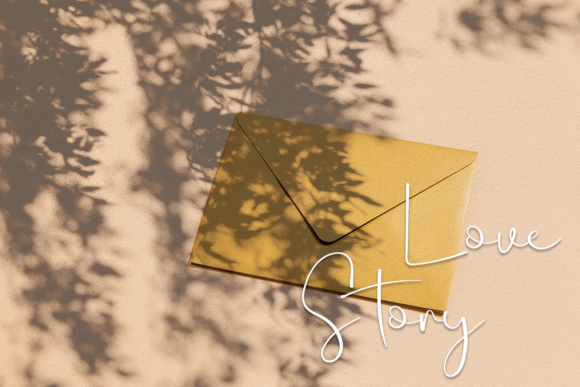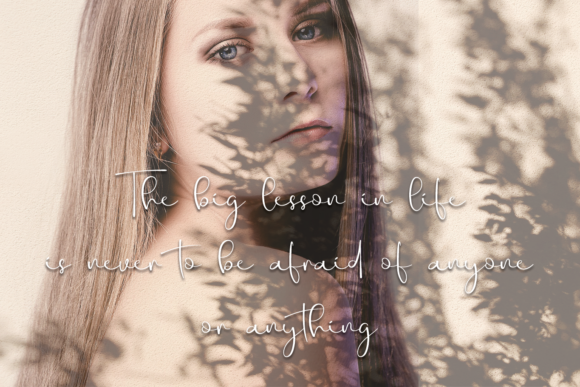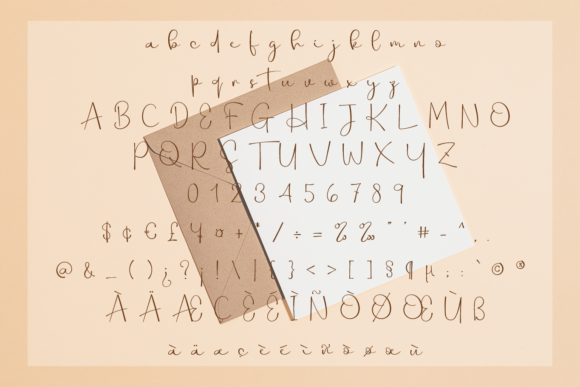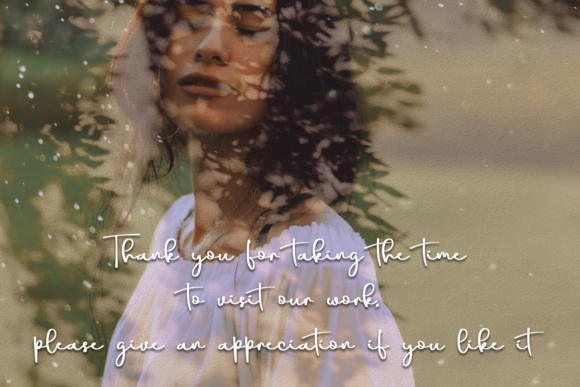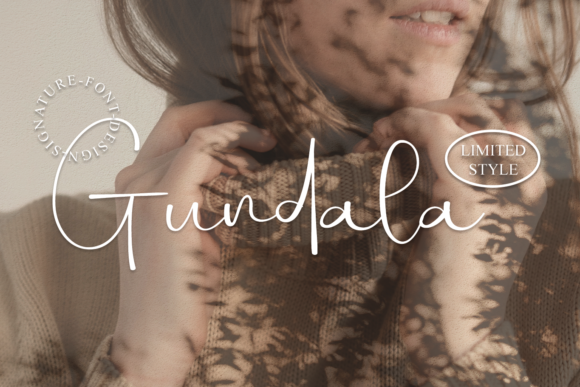
Gundala Font: Elevate Your Designs with Elegance and Class
In the world of typography, fonts play a crucial role in conveying the tone and personality of a design. For those seeking a lovely and delicate script font that exudes elegance and class, look no further than Gundala Font. This beautiful font was particularly crafted for designers and crafters who need a refreshing and stunning look to enhance their creations.
The Beauty of Gundala Font
Gundala Font is a script font that boasts a unique and captivating style, perfect for adding a touch of sophistication to various design projects. Its delicate and elegant appearance makes it an ideal choice for designers who want to create visually appealing and high-end designs. Whether you’re working on a branding project, wedding invitation, or social media graphic, Gundala Font is sure to impress.
Key Features of Gundala Font
• Elegant and Delicate Design: Gundala Font features a beautiful, hand-crafted design that exudes elegance and refinement.
• Script Style: This font is a script font, perfect for adding a touch of sophistication and glamour to your designs.
• High-Quality: Gundala Font is a high-quality font, carefully crafted to ensure that it looks great in any design.
• Versatile: This font is versatile and can be used for a wide range of design projects, from branding and advertising to wedding invitations and social media graphics.
Use Cases for Gundala Font
Gundala Font is a versatile font that can be used for various design projects, including:
• Branding and Logo Design: Use Gundala Font to create a stunning logo or brand identity that exudes elegance and sophistication.
• Wedding Invitations and Stationery: Add a touch of romance and elegance to your wedding invitations and stationery with Gundala Font.
• Social Media Graphics: Use Gundala Font to create visually appealing social media graphics that stand out from the crowd.
• Advertising and Marketing Materials: Gundala Font is perfect for creating high-end advertising and marketing materials that require a touch of elegance and sophistication.
Why Choose Gundala Font?
With so many fonts available, why choose Gundala Font? Here are a few reasons why designers and crafters love this font:
• Unique and Eye-Catching: Gundala Font is a unique and eye-catching font that will make your designs stand out from the crowd.
• Elegant and Sophisticated: This font exudes elegance and sophistication, making it perfect for high-end designs.
• Easy to Read: Despite its delicate design, Gundala Font is easy to read, making it perfect for body text and headlines.
Tips for Using Gundala Font
To get the most out of Gundala Font, here are a few tips:
• Use it as a Headline Font: Gundala Font is perfect for headlines and titles, where its elegant design can shine.
• Pair it with a Sans-Serif Font: Pair Gundala Font with a sans-serif font for body text to create a beautiful contrast.
• Experiment with Colors: Gundala Font looks great in a variety of colors, so don’t be afraid to experiment and find the perfect hue for your design.
In conclusion, Gundala Font is a beautiful and elegant script font that is perfect for designers and crafters who need a refreshing and stunning look for their designs. With its delicate design, versatility, and high-quality craftsmanship, Gundala Font is sure to elevate your designs to the next level. Whether you’re working on a branding project, wedding invitation, or social media graphic, Gundala Font is a great choice.